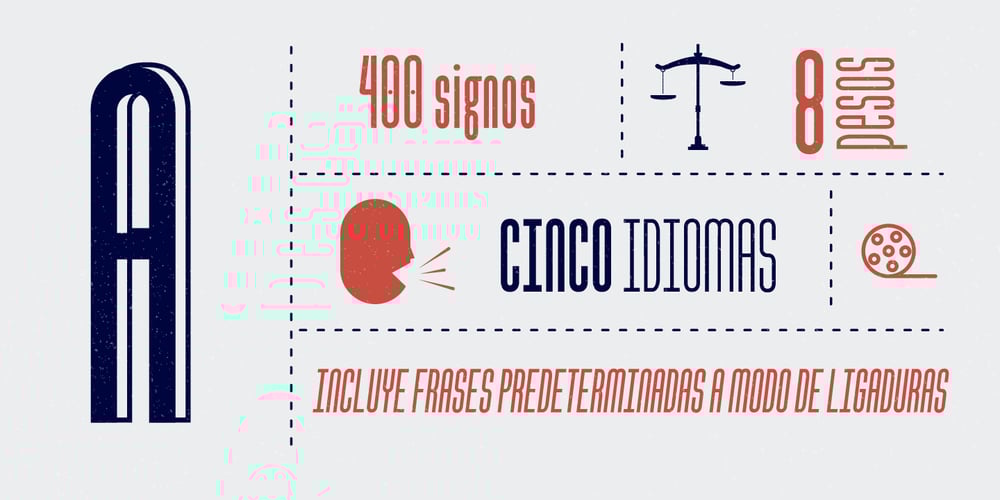
Cinematica Font Family was designed by Camila Basso Rubbo and published by Underground. Cinematica contains 8 styles and family package options. Cinematica was specially designed for film credits in communication pieces. Due to its space saving qualities, geometric elegance of its shapes, and eight wights; it allows a wide range of uses. Its geometry makes Cinematica able to harmonize and unify any text, incorporating the necessary signs for composition in English, Spanish, Italian, French, German and Portuguese. The Regular weight also incorporates statements that usually appear in film credits (such as “directed by”, “produced by”, etc.) that have been programmed as predetermined ligatures and can be accessed by typing a short sequence of signs to avoid typing the full phrase. To make the most of the alternatives proposed, use applications that support Open Type. Take a look at the User Guide.